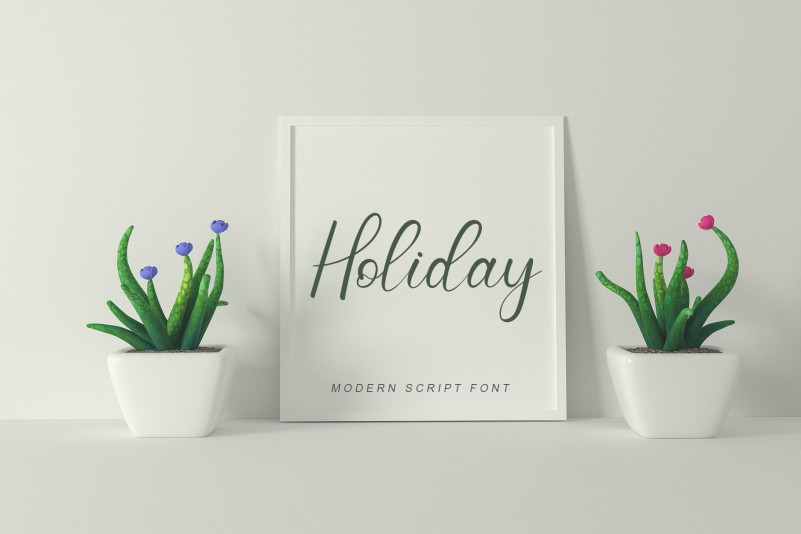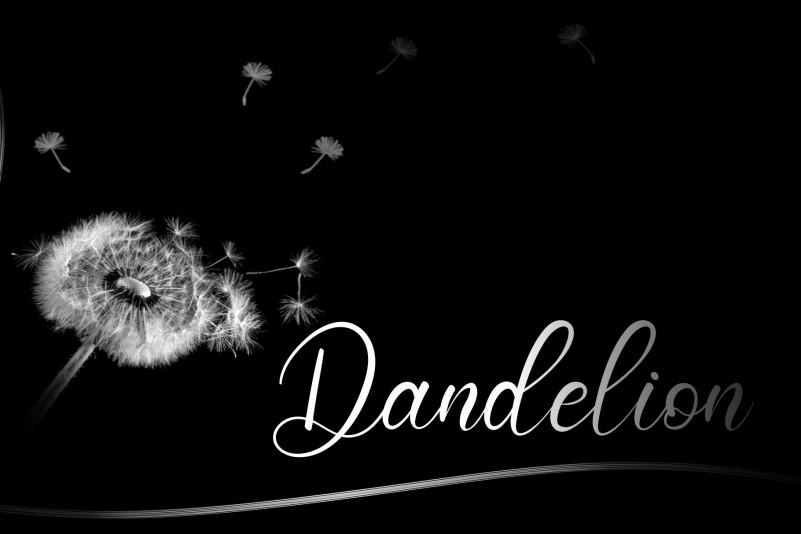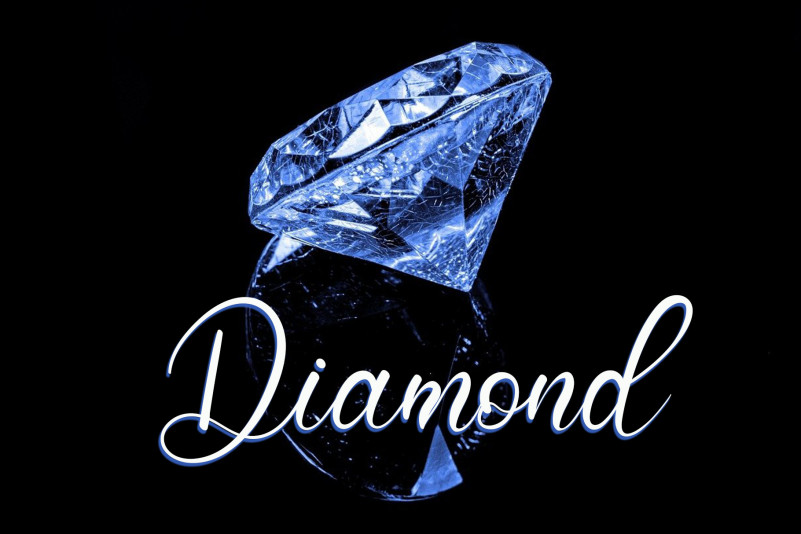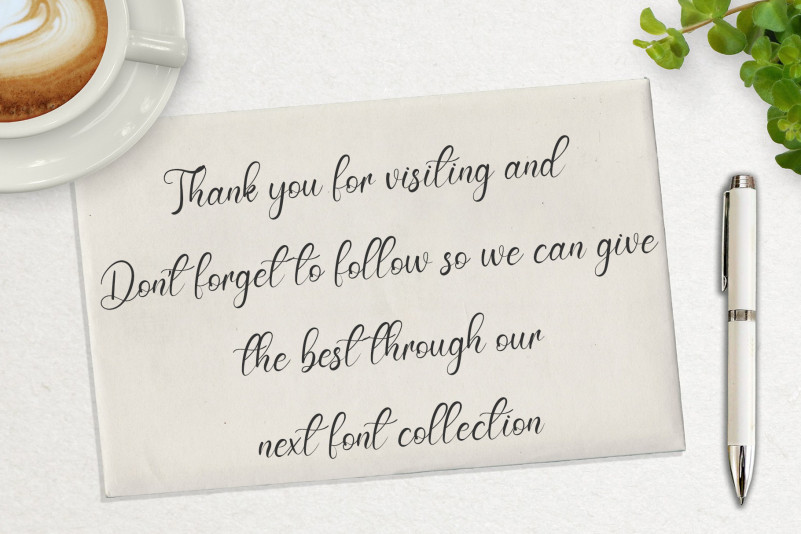
Summer Signature Font
Summer Signature Script Font
This is a dainty and elegant handwritten font. Its distinct and well balanced letters make this font a masterpiece. Fall in love with its incredibly versatile style and use it to create spectacular designs!